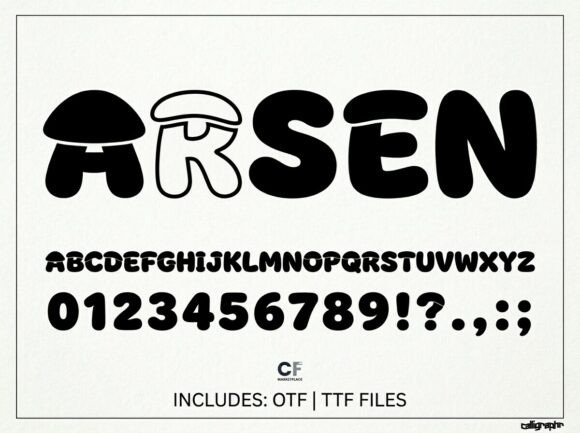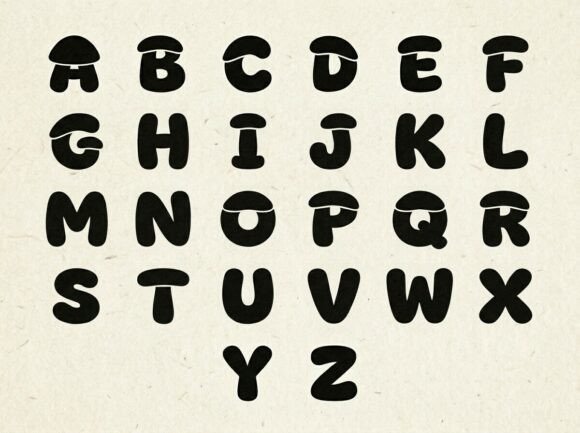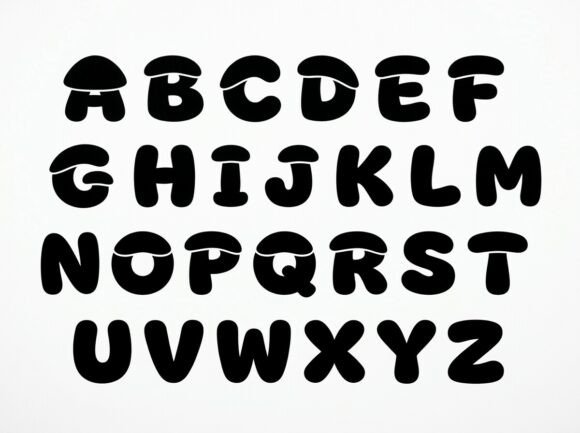
Introducing Arsen Font: Elevate Your Creative Projects with a Decorative Display Font
Are you tired of using the same old fonts for your creative projects? Do you want to make a statement and break away from the ordinary? Look no further than Arsen Font, a decorative display font designed to be the centerpiece of any layout. With its distinct artistic elements and strong character, Arsen Font is perfect for creators who want to add a touch of elegance and sophistication to their work.
What Makes Arsen Font Special?
Arsen Font is a unique and powerful tool for designers and crafters. Its bold and artistic design makes it perfect for a variety of applications, from bold headlines to creative branding and packaging. The font delivers a high-end, professional aesthetic without compromising on personality, making it ideal for projects that require a touch of luxury and sophistication.
Key Features of Arsen Font
It’s worth noting that Arsen Font is an All-Caps display typeface. By design, it does not contain lowercase letters, making it a powerful tool for logos, titles, and decorative initials. This unique feature allows designers to create bold and eye-catching typography that is sure to grab attention.
Arsen Font is perfect for designers and crafters who want to add a touch of elegance and sophistication to their work. Whether you’re working on a branding project, creating packaging for a product, or designing a website, Arsen Font is sure to make a statement. Its bold and artistic design makes it perfect for a variety of applications, including:
- Logos and Branding: Create a bold and eye-catching logo that stands out from the crowd.
- Packaging: Add a touch of luxury and sophistication to your product packaging.
- Headlines and Titles: Create bold and attention-grabbing headlines and titles that make a statement.
- Web Design: Add a touch of elegance and sophistication to your website with Arsen Font.
Benefits of Using Arsen Font
There are many benefits to using Arsen Font in your creative projects. Some of the key benefits include:
- Unique and Bold Design: Arsen Font has a unique and bold design that is sure to grab attention.
- High-End Aesthetic: The font delivers a high-end, professional aesthetic without compromising on personality.
- Versatility: The font is perfect for a variety of applications, from logos and branding to packaging and web design.